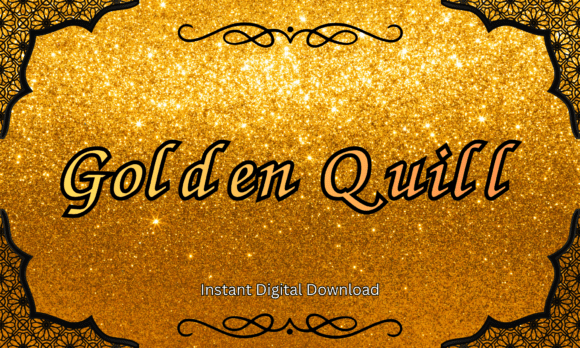
Add a Touch of Elegance and Luxury to Your Designs with Golden Quill Font
✨ Elevate your designs with Golden Quill, a refined script font that embodies the sophistication and luxury of classic calligraphy and golden ink. This exquisite font is perfect for creating stunning wedding invitations, branding materials, and high-end designs that exude timeless elegance. ✨
Perfect for:
Golden Quill Font is designed to elevate your designs and add a touch of sophistication. It’s perfect for:
- Wedding invitations: Create stunning and elegant wedding invites that set the tone for a memorable celebration.
- Logos & branding: Establish your brand’s luxury credentials with a custom logo or wordmark featuring Golden Quill Font.
- Luxury packaging: Elevate your product packaging with a sophisticated and high-end aesthetic.
- Business cards: Make a lasting impression with elegant and refined business cards that showcase your professionalism.
- Social media graphics: Add a touch of luxury to your social media presence with stunning graphics and quotes.
- Wall art: Create beautiful and elegant wall art that adds a touch of sophistication to any room.
- Event signage: Make a statement with stunning event signage that sets the tone for a memorable experience.
- Elegant stationery: Create beautiful and refined stationery that showcases your personal style.
Font Style and Characteristics
Golden Quill Font boasts a range of characteristics that make it perfect for luxury designs:
- Elegant script/calligraphy: Inspired by classic calligraphy, this font features smooth, flowing strokes that exude elegance.
- Smooth flowing strokes: The font’s smooth strokes create a sense of fluidity and sophistication.
- Luxury & high-end aesthetic: Golden Quill Font is designed to evoke a sense of luxury and refinement.
- Classic + timeless design: This font’s classic design ensures it will remain timeless and relevant for years to come.
- Perfect for formal and romantic themes: Golden Quill Font is ideal for designs that require a touch of elegance and sophistication.
✨ With Golden Quill Font, you’ll be able to add a touch of elegance and luxury to your designs, elevating your projects to new heights. Whether you’re a designer, crafter, or DIY enthusiast, this refined script font is sure to become a favorite in your collection. ✨